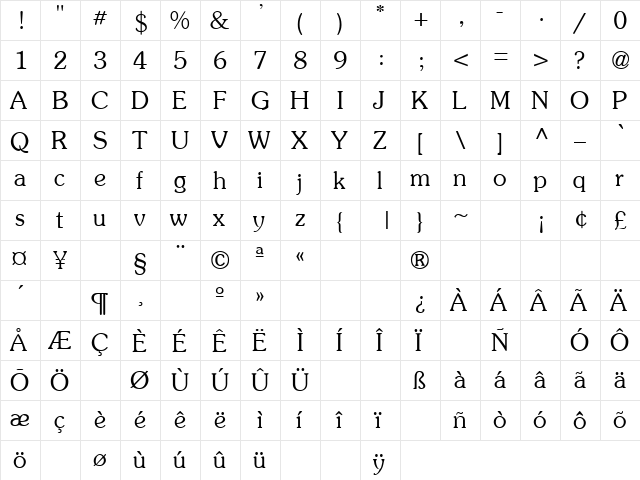
Train Kept 4 Regular
Design Context for Train Kept 4 Typeface
Train Kept 4 is a composed and adaptable typeface that performs quietly and consistently across a wide range of design contexts.